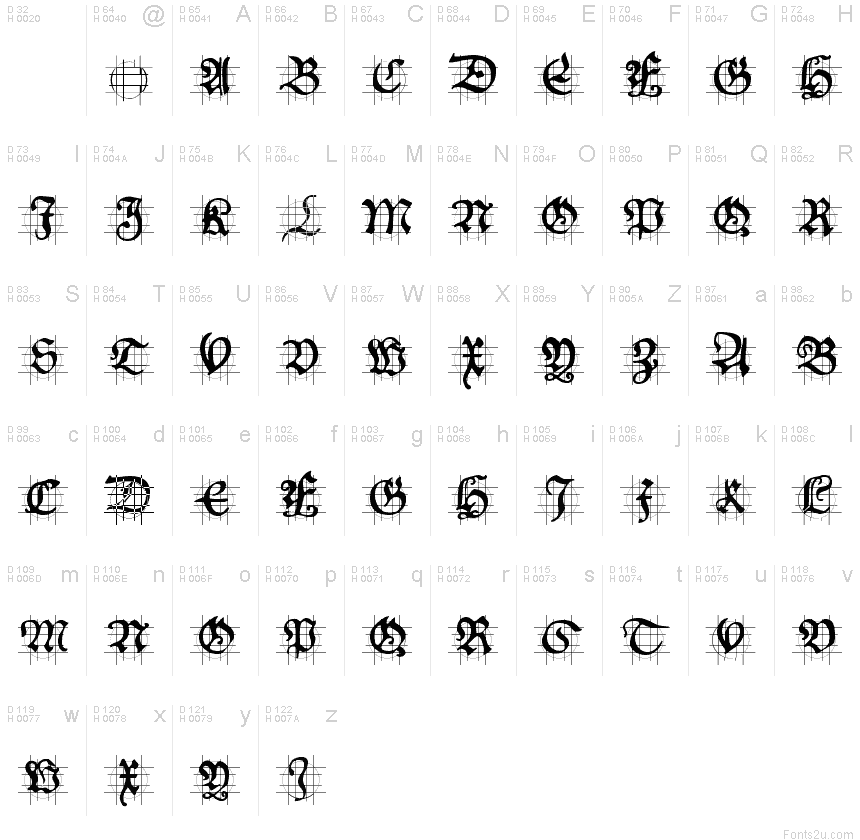
HansSchoensCapsInGrid
Hans Schoens Caps In Grid by M Klein is a free blackletter initials font built around ornate medieval-style capitals. Broad dark strokes curl into sharp hooks and compact flourishes. Fine construction lines and square guides remain visible behind the lettering.
Its manuscript character suits historical publishing, museum graphics, and fantasy game titles. The gridded framework gives each initial an engraved diagram-like quality. For heritage brands or themed events, the letters can become crests and badges rather than ordinary text.